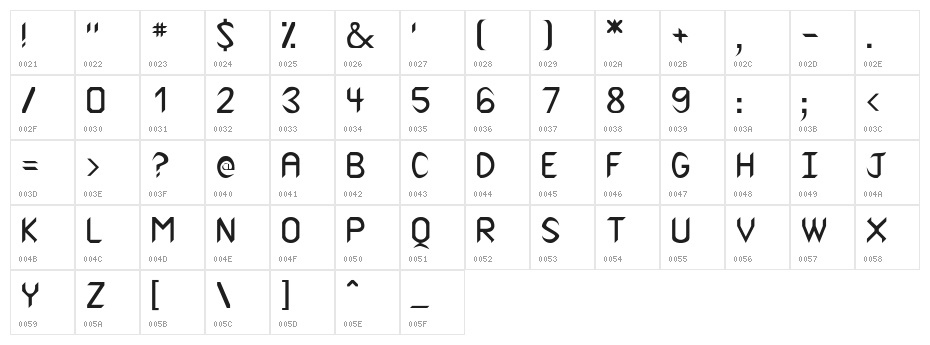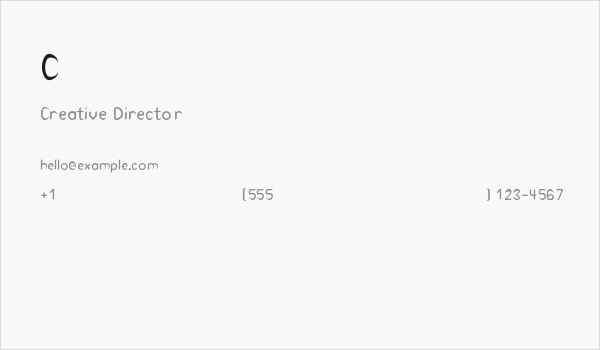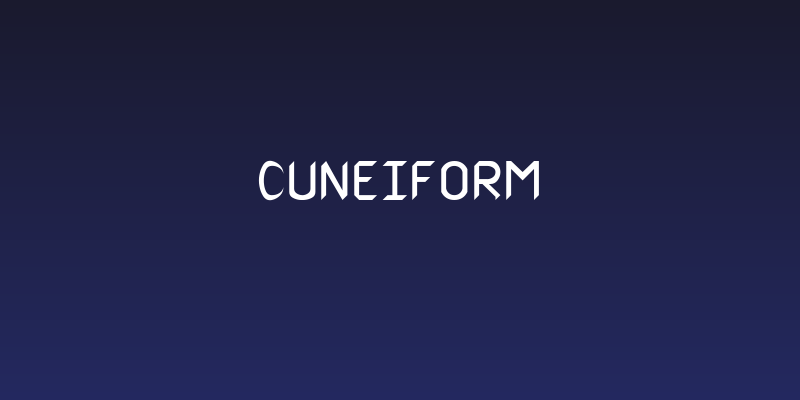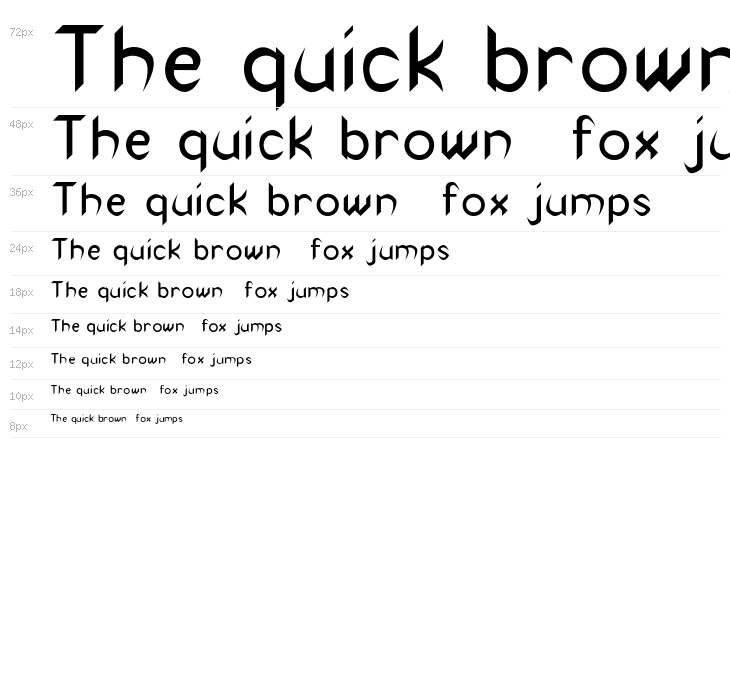
Cuneiform Font
Cuneiform Description
This font features a unique and modern design with angular and geometric elements. The uppercase letters are bold and distinct, with sharp angles and a futuristic feel. The lowercase letters maintain a consistent style, offering a smooth transition between characters. Numbers are clear and easy to read, with a similar angular design that complements the alphabet. Special characters are creatively integrated, maintaining the overall aesthetic. The font's design is both eye-catching and versatile, suitable for a variety of creative projects.
Proposed ProjectsIdeal for branding, logos, posters, and digital media that require a modern and edgy look.